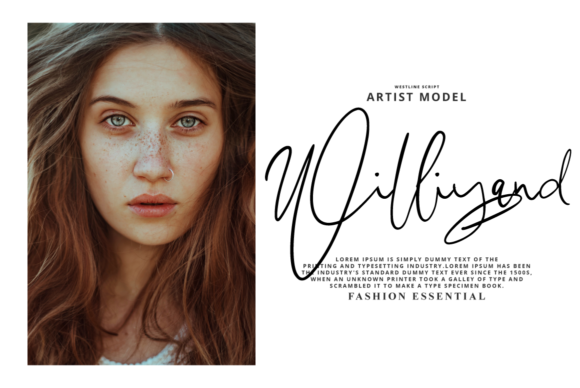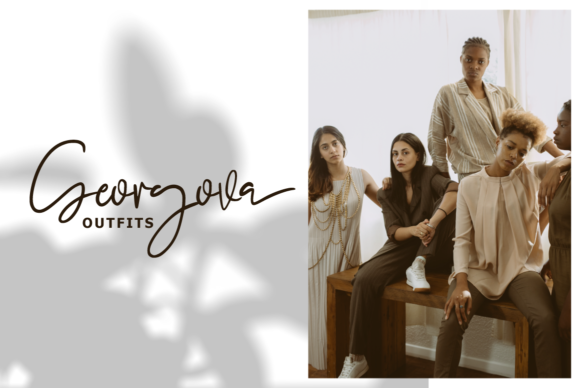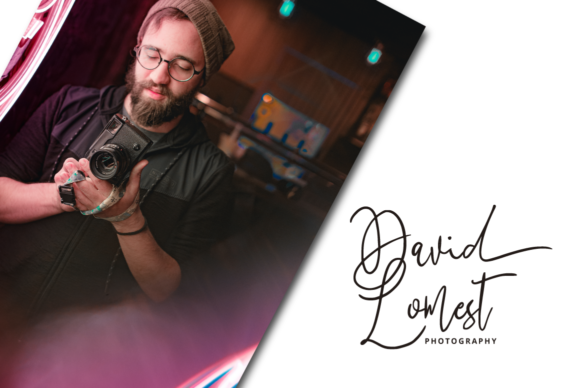
About Megidame Font
Introducing Megidame: The Timeless and Incredibly Trendy Handwritten Font
Discover the perfect blend of timeless elegance and modern trendiness with Megidame, a handwritten font that captivates with its unique and beautiful touch. Whether you’re creating eye-catching logos, branding, or quotes, Megidame is the best choice. Embrace the charm and sophistication of Megidame as you bring your designs to life with a touch of exquisite beauty.
Megidame’s timeless and trendy appeal brings a sense of grace and sophistication to your designs. Its handwritten letterforms flow with a seamless beauty, making your text exude an irresistible and captivating energy.
As a font that marries timeless elegance with modern trendiness, Megidame becomes the go-to choice for projects that demand a touch of creativity and sophistication. Each letter carries a unique and beautiful touch, ensuring that your work resonates with a dynamic and alluring look.
Embrace the beauty of Megidame as you embark on your creative journey. Let it be the font that elevates your designs, adding a sense of timelessness and trendiness in every project.
As you explore the possibilities of Megidame, you’ll find it to be a font that enhances your designs with ease. Its exquisite and trendy handwritten beauty transforms your work, ensuring that your creations leave a lasting impression.
So, let Megidame be the font that brings your designs to life. Embrace its timeless elegance and modern trendiness, and watch as your logos, branding, and quotes come alive with a touch of unique beauty. With Megidame as your go-to font, your designs will resonate with charm and sophistication, captivating your audience and leaving a lasting impression. Embrace the beauty of Megidame and create designs that are truly eye-catching and unforgettable!